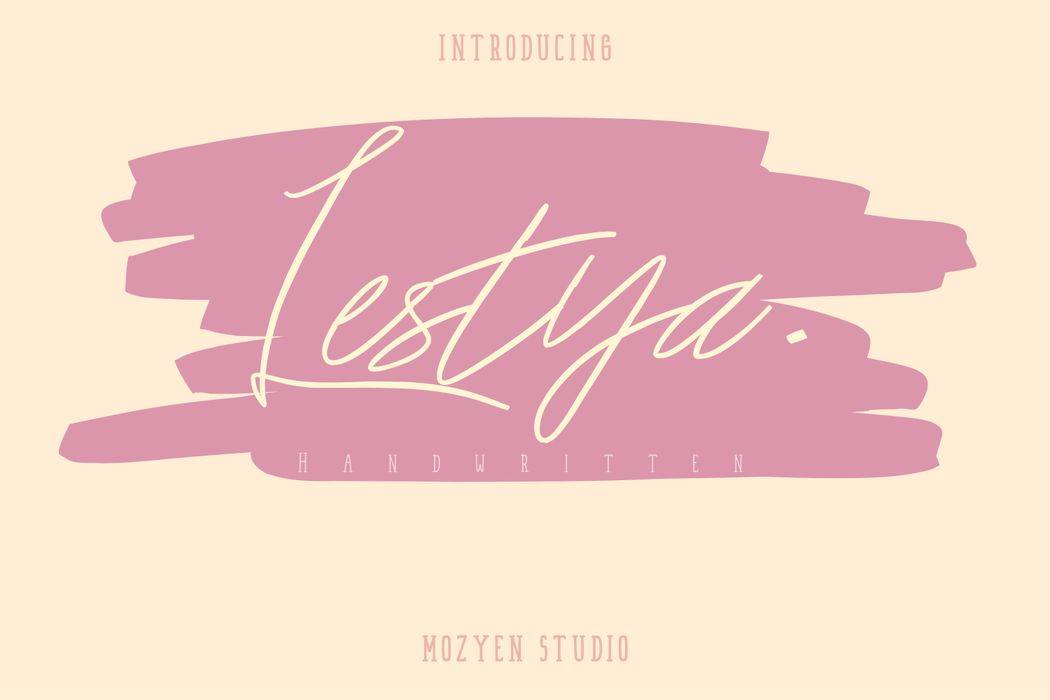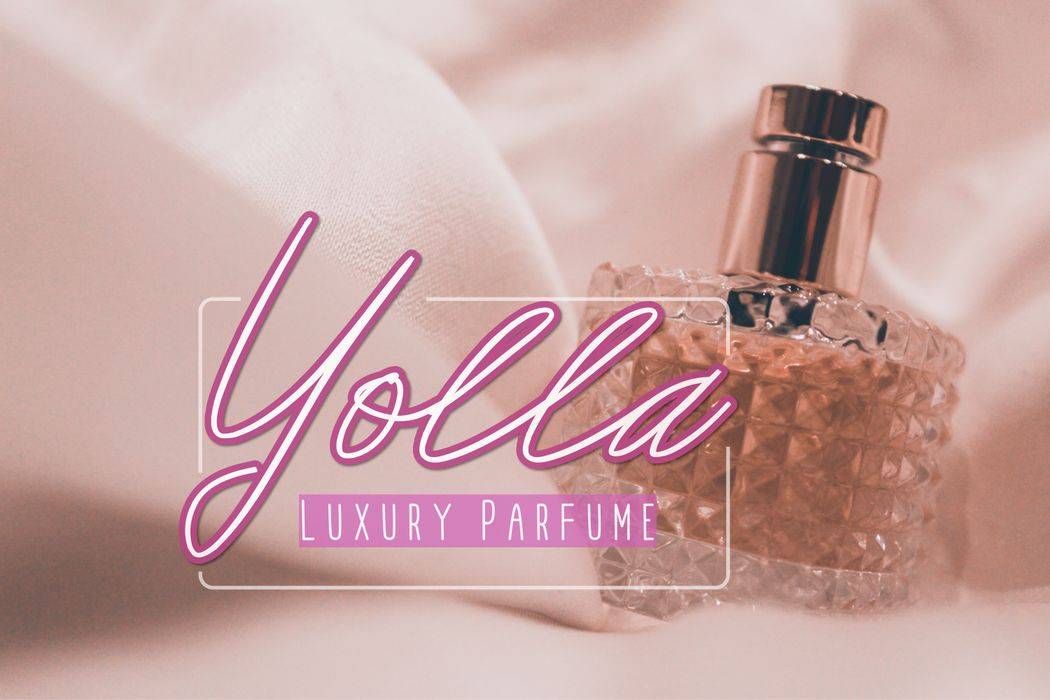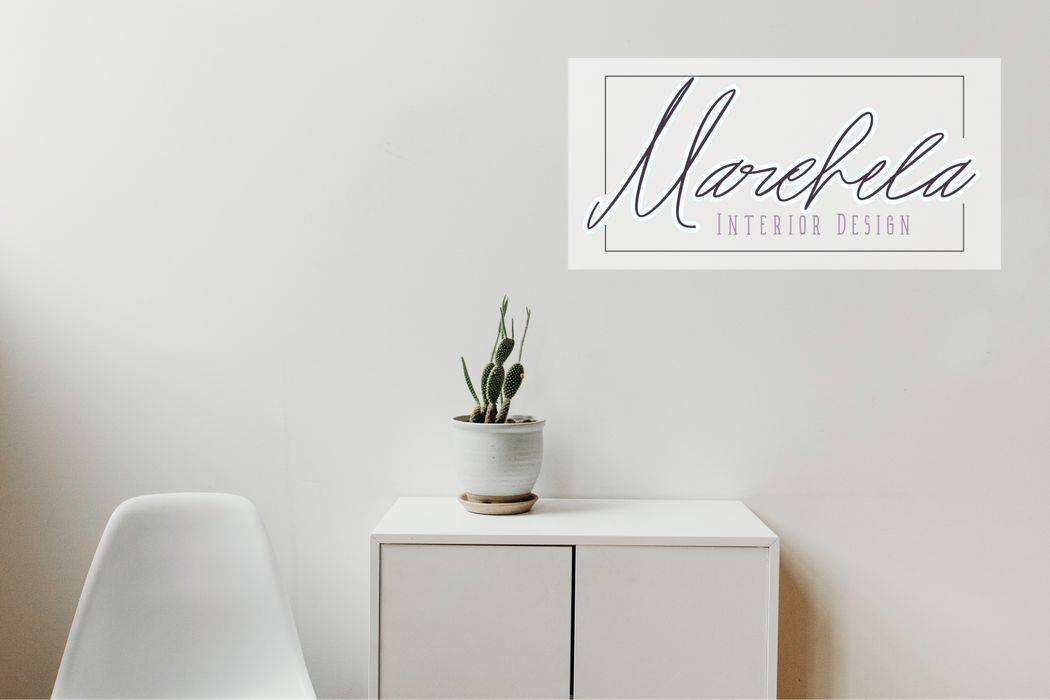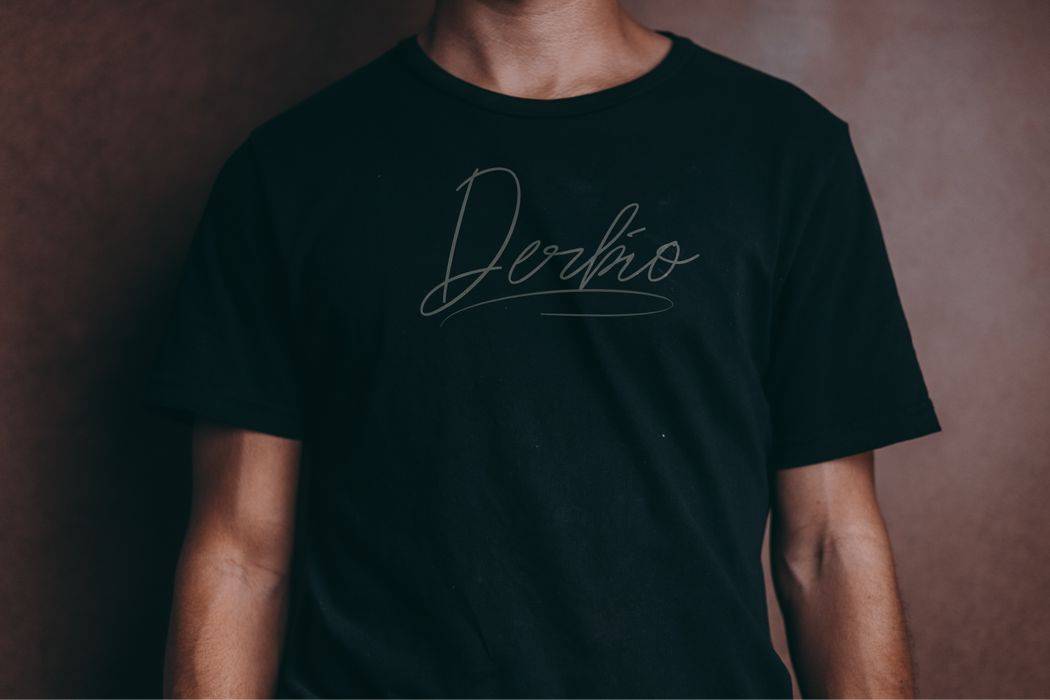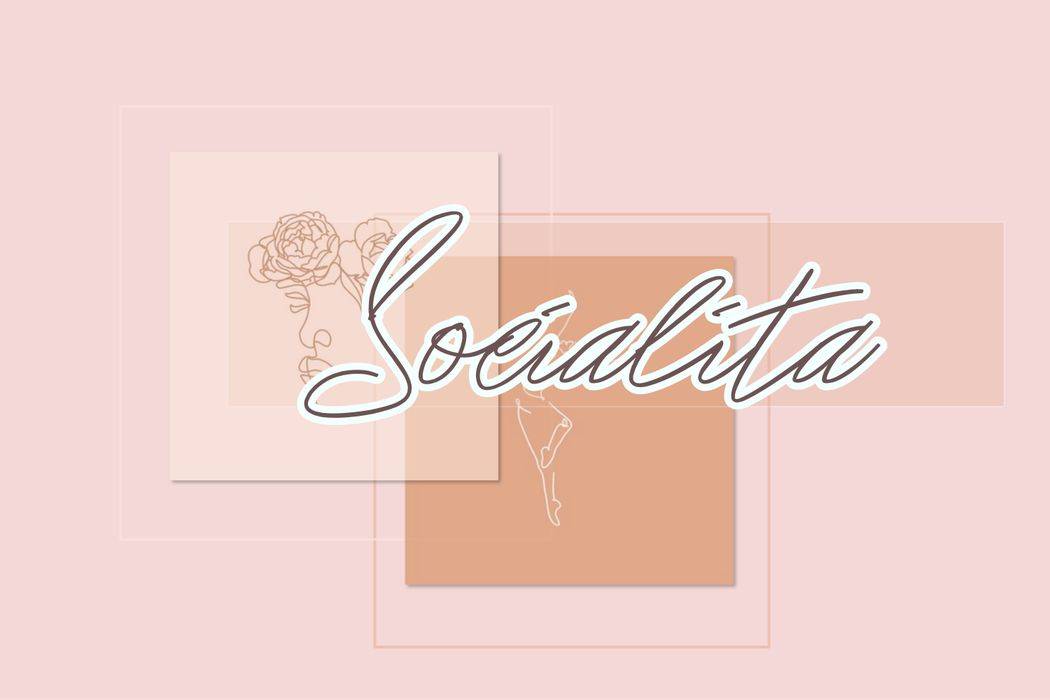
Lestya is a delicate, handwritten script font characterized by its thin, airy strokes and elegant, flowing letterforms that convey a personal, artistic touch. Its light weight and tall, narrow shapes give it a refined, modern feel, making it ideal for creative branding, invitations, and stylish headlines where a sense of sophistication and individuality is desired. This font works best in designs that seek a graceful, intimate atmosphere without overwhelming the layout.
Lestya Font
About Lestya Font